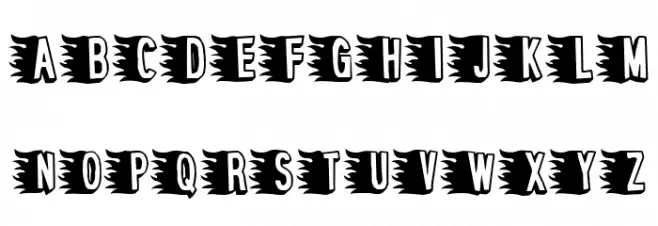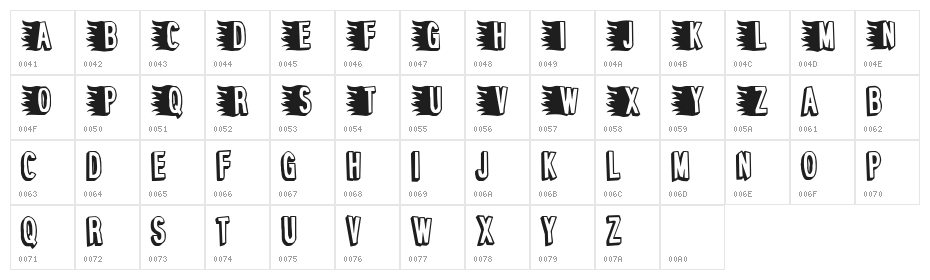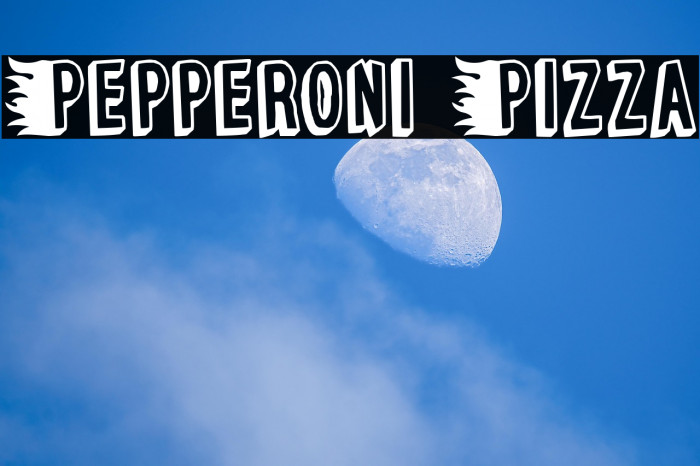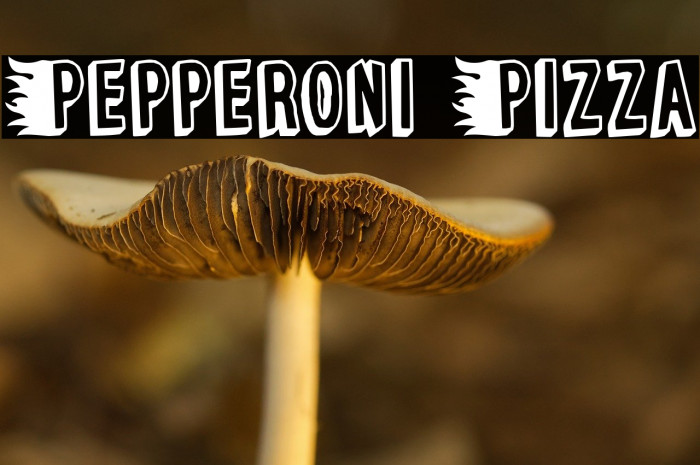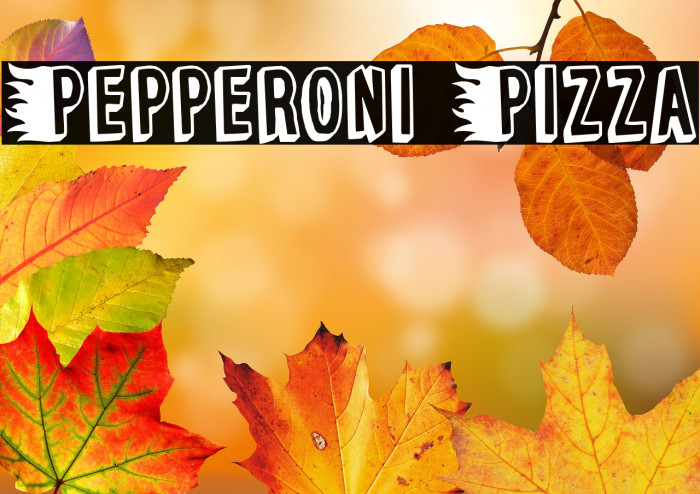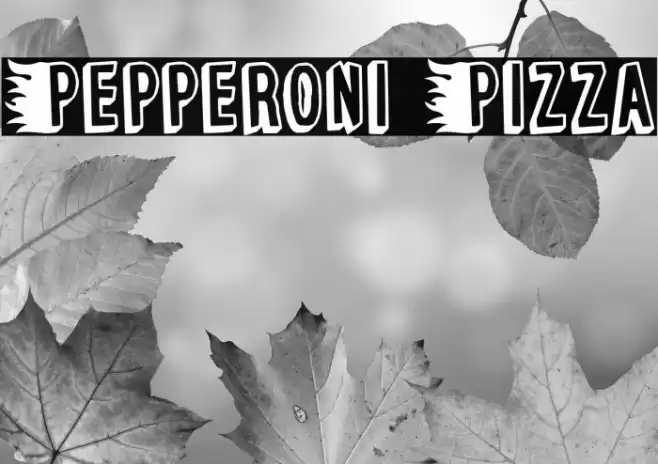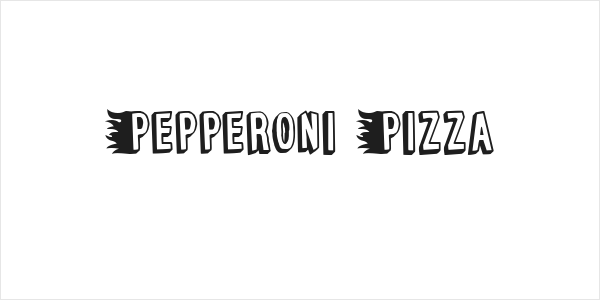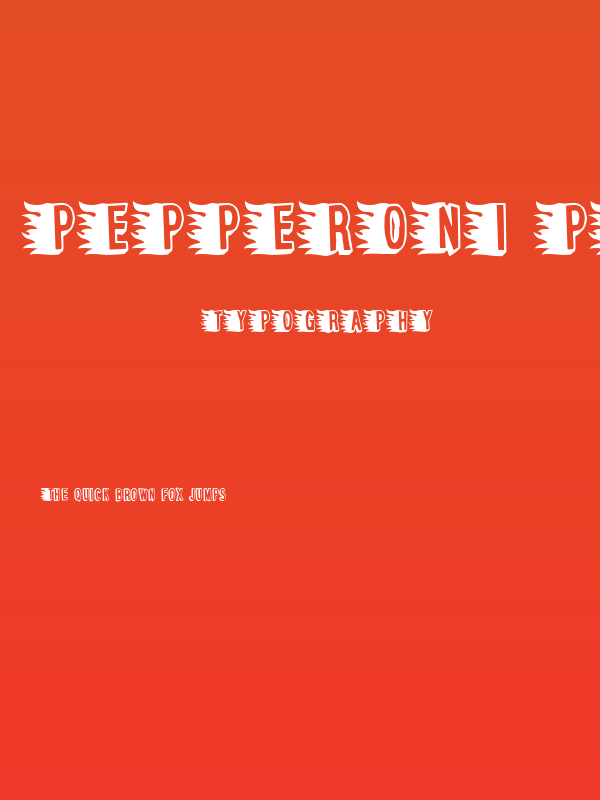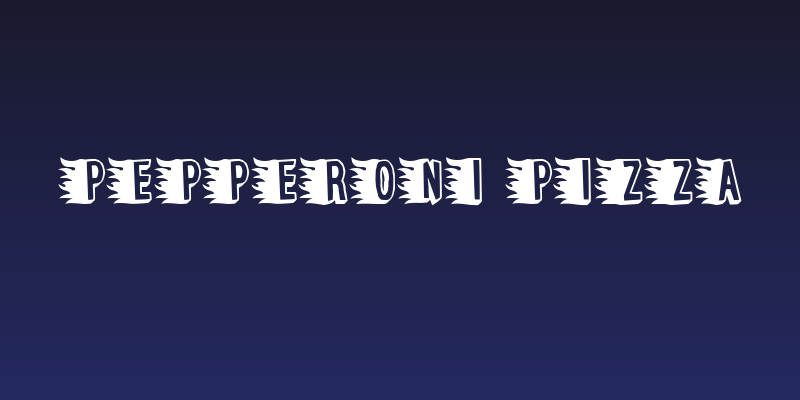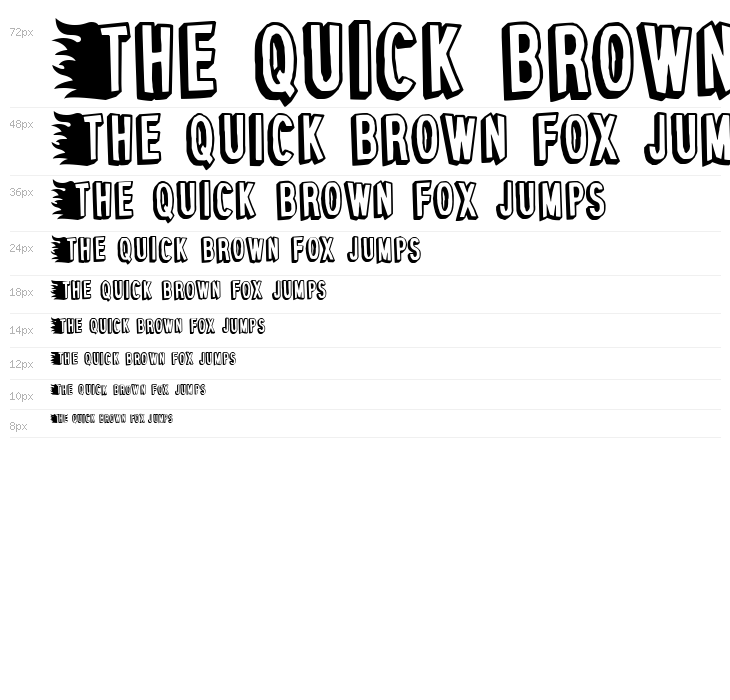
Pepperoni Pizza Font
Pepperoni Pizza Description
This font features a bold and playful design, characterized by its jagged edges and dynamic, energetic appearance. The uppercase letters are particularly striking, with a sense of movement that suggests a lively, almost comic book style. The lowercase letters maintain this playful aesthetic, ensuring consistency across the typeface. The numbers and special characters are equally bold, making them stand out in any design. This font's unique style makes it ideal for projects that require a fun and engaging look.
| Overall Style | Playful, Energetic |
| Proposed Projects | Ideal for comic books, children's books, playful branding, and event posters. |